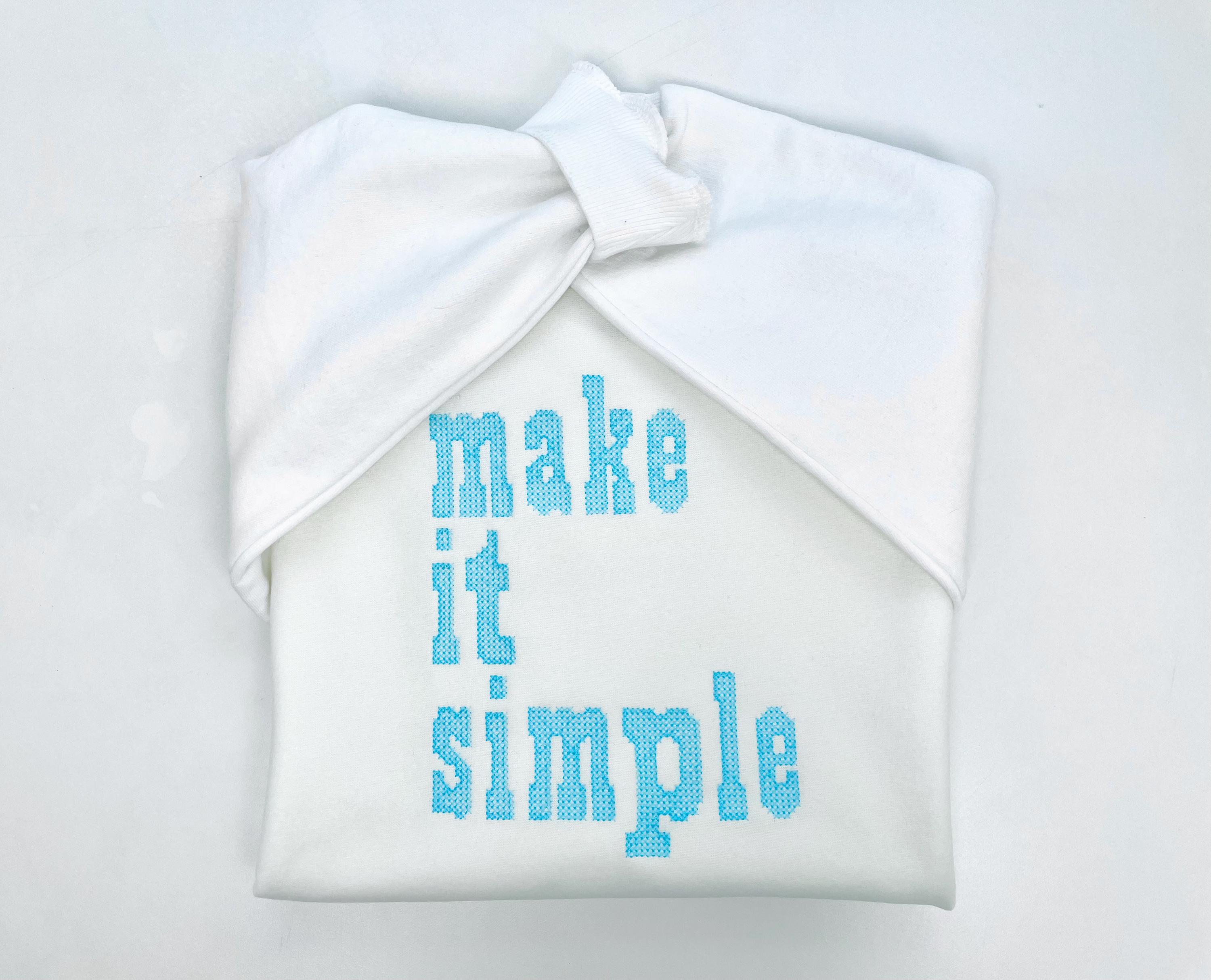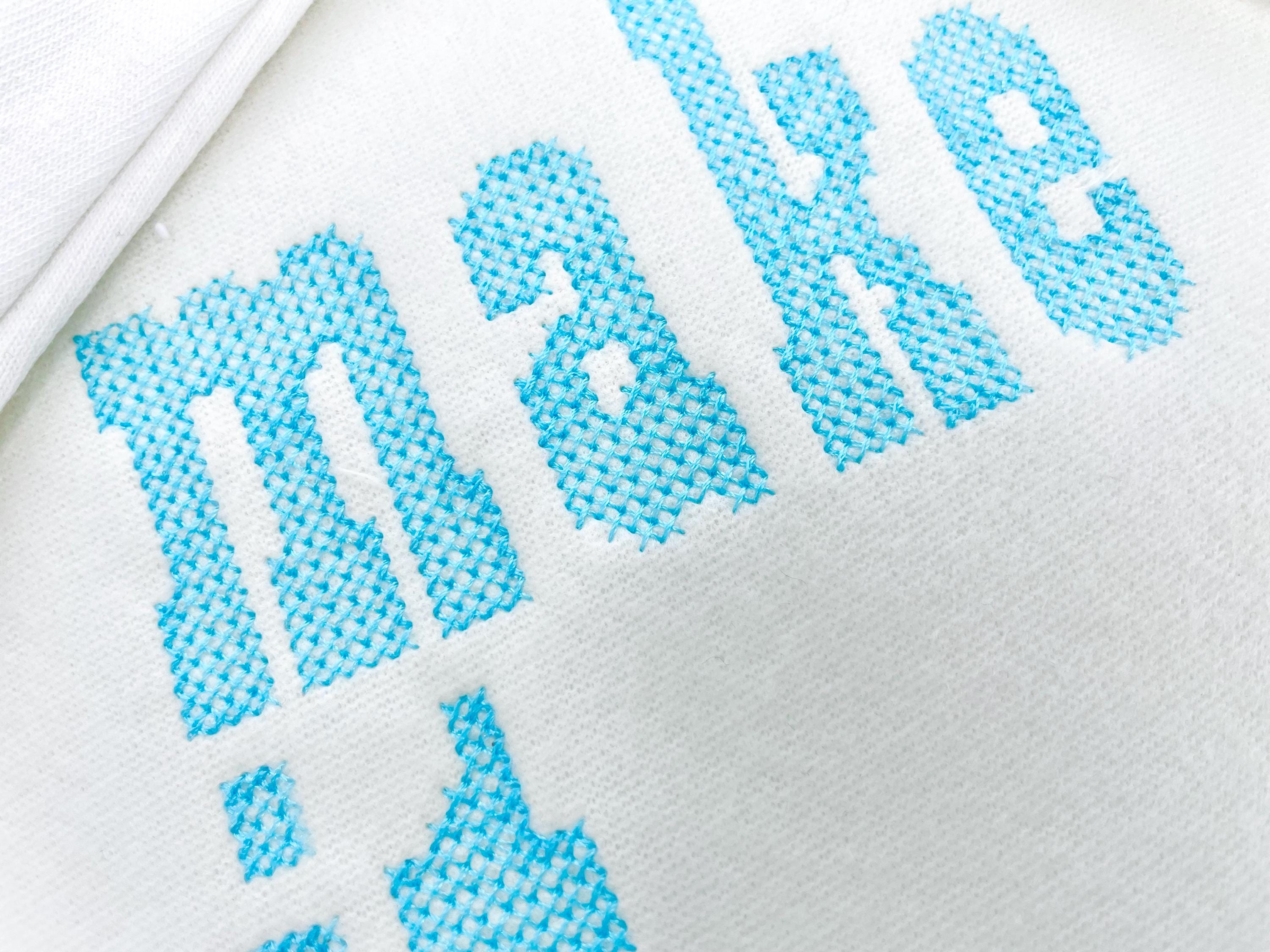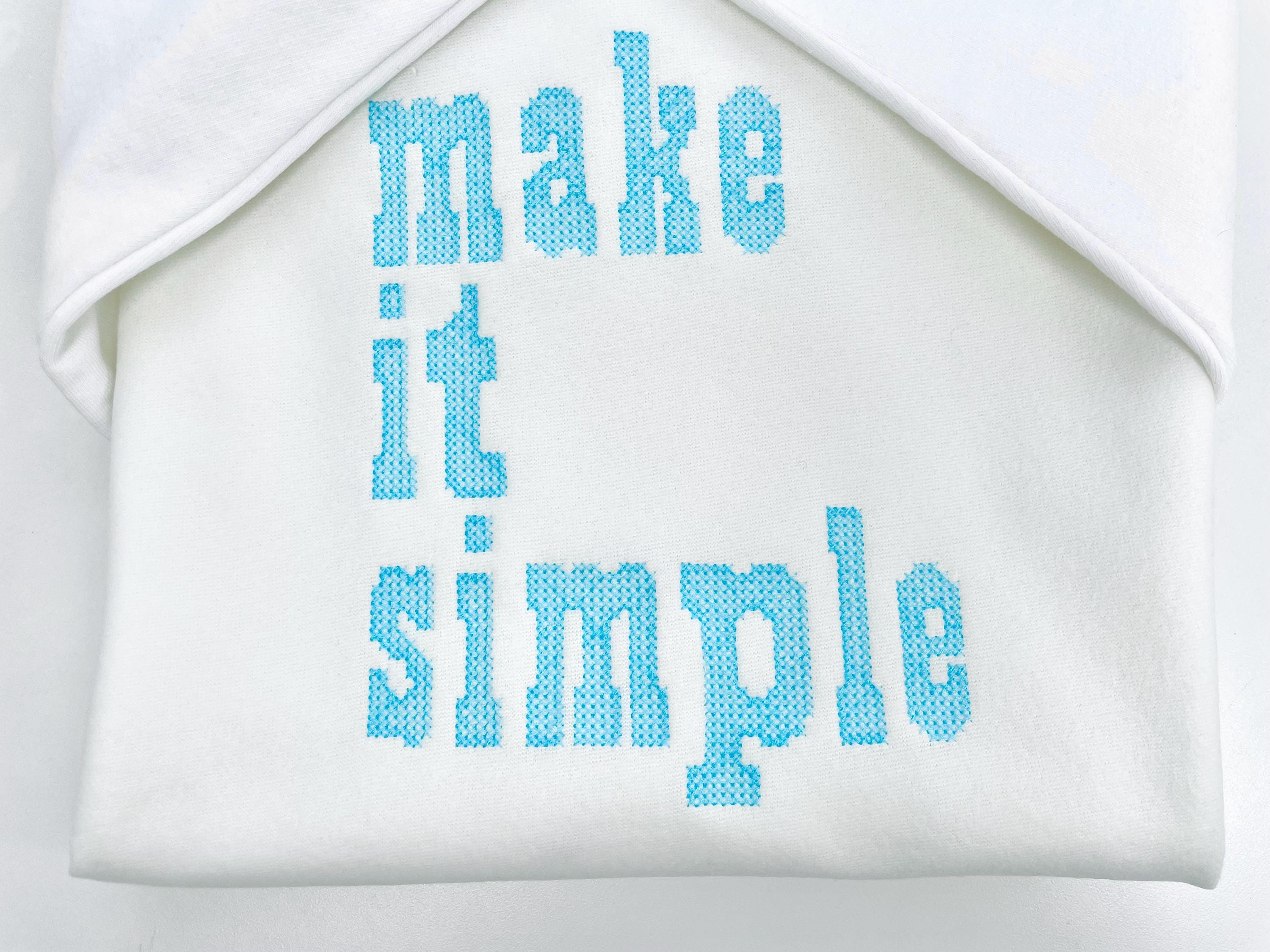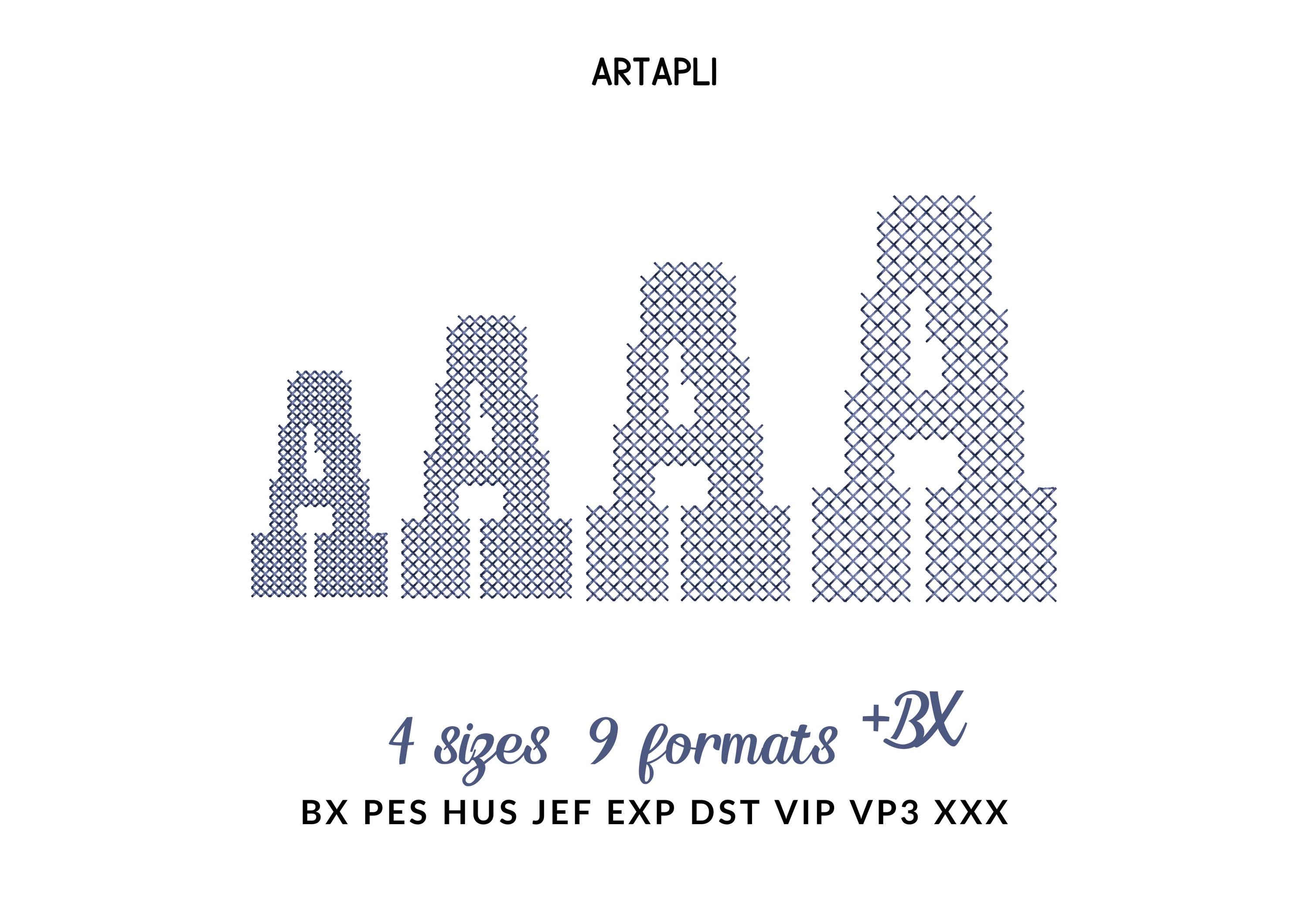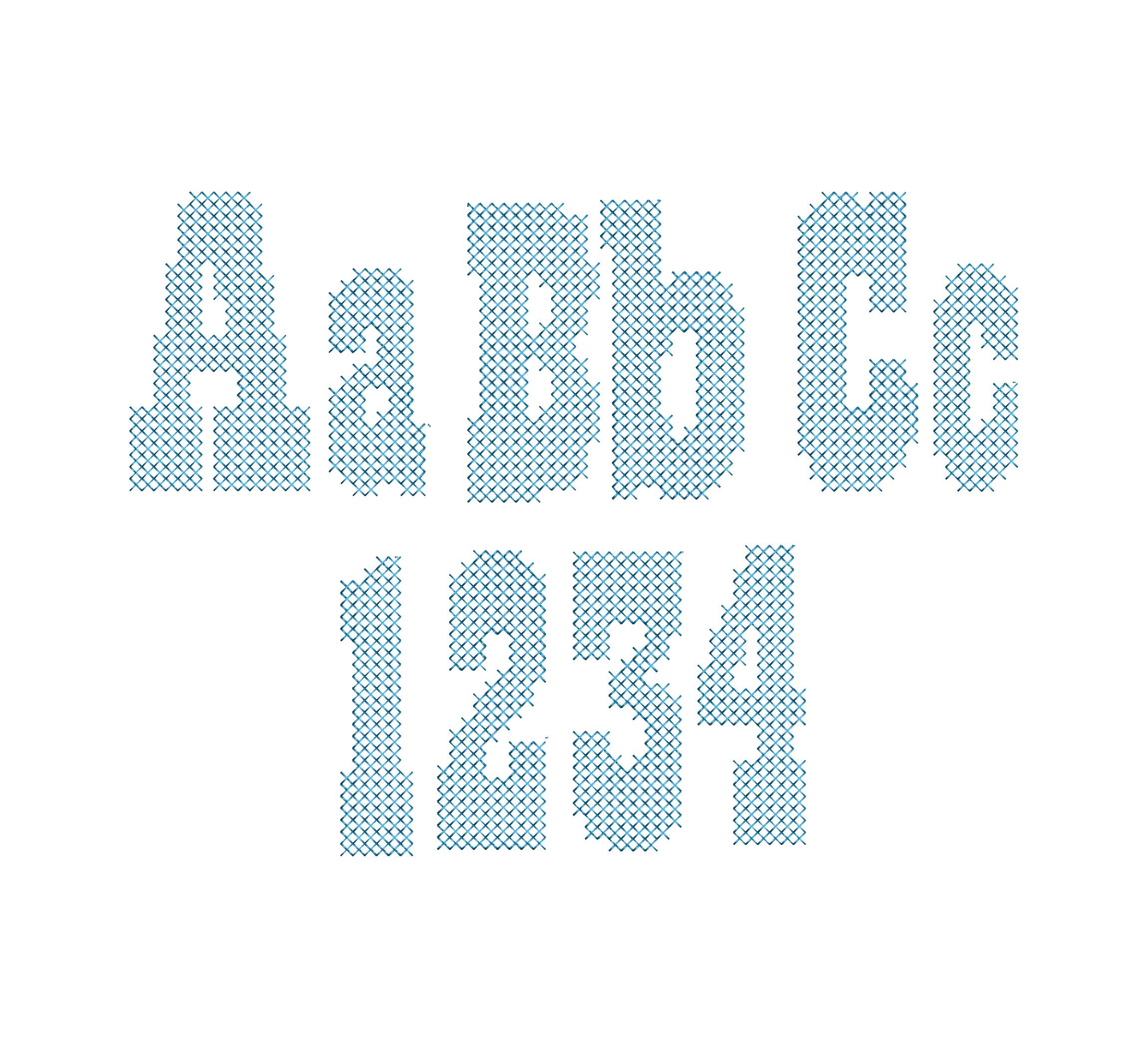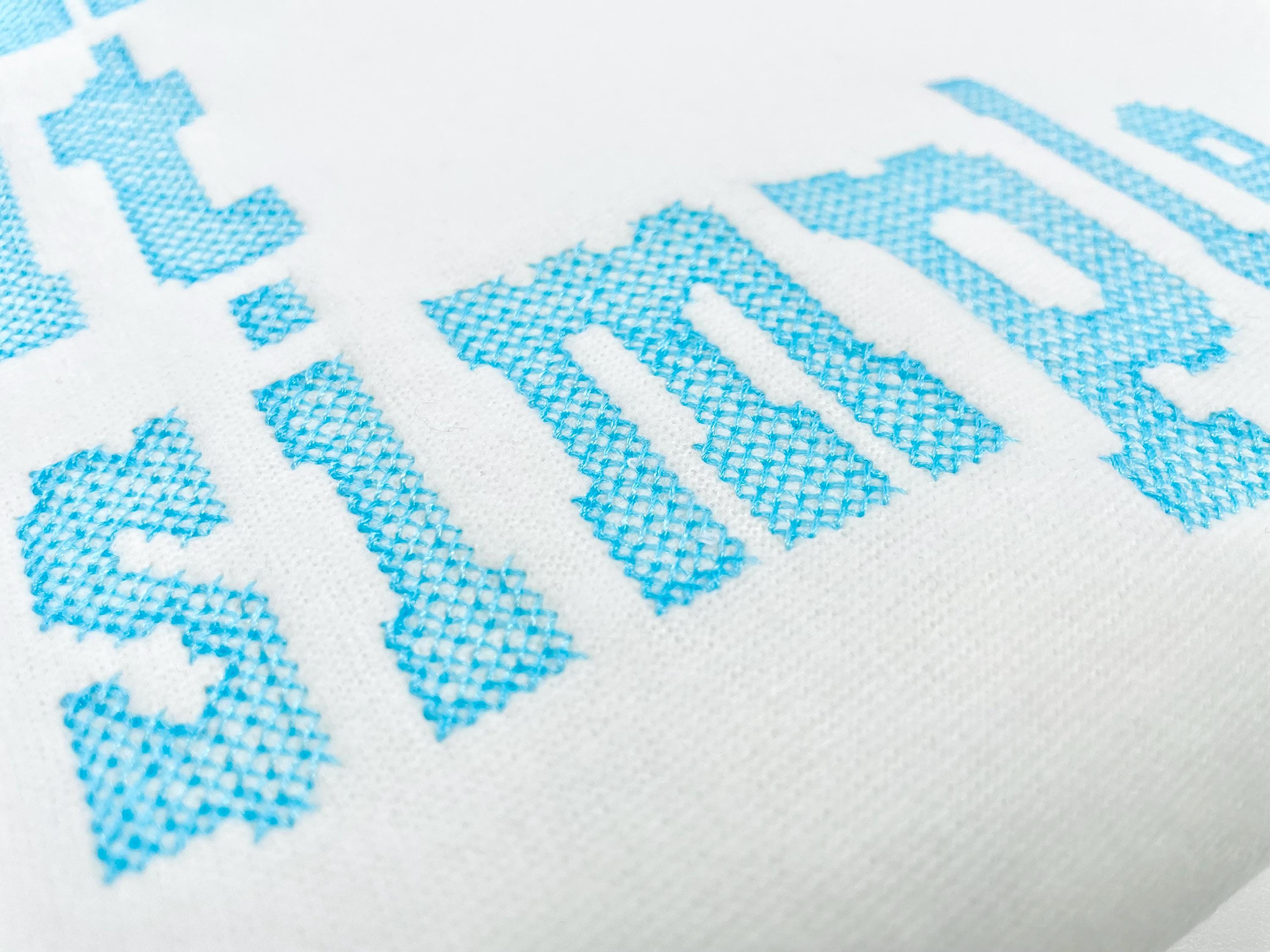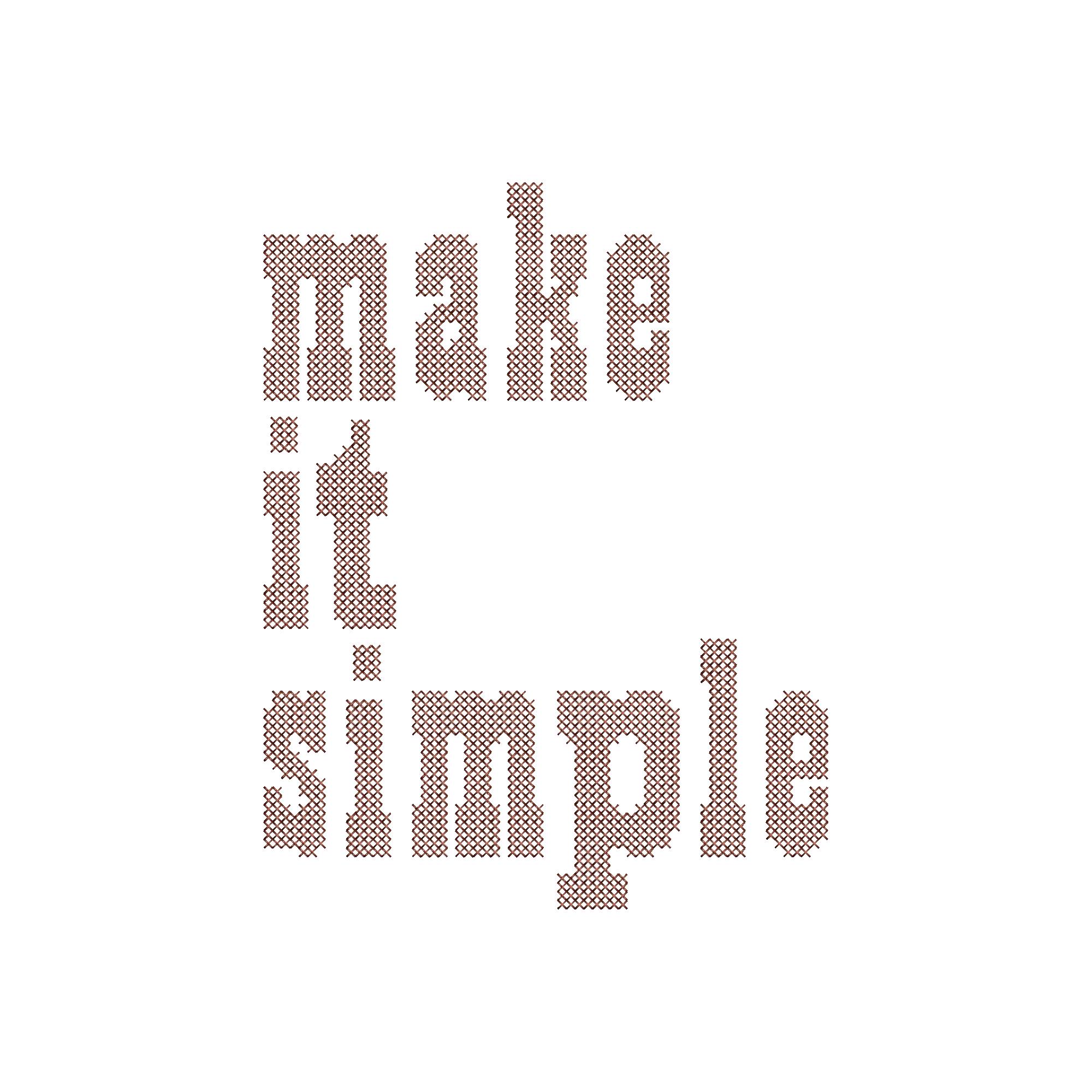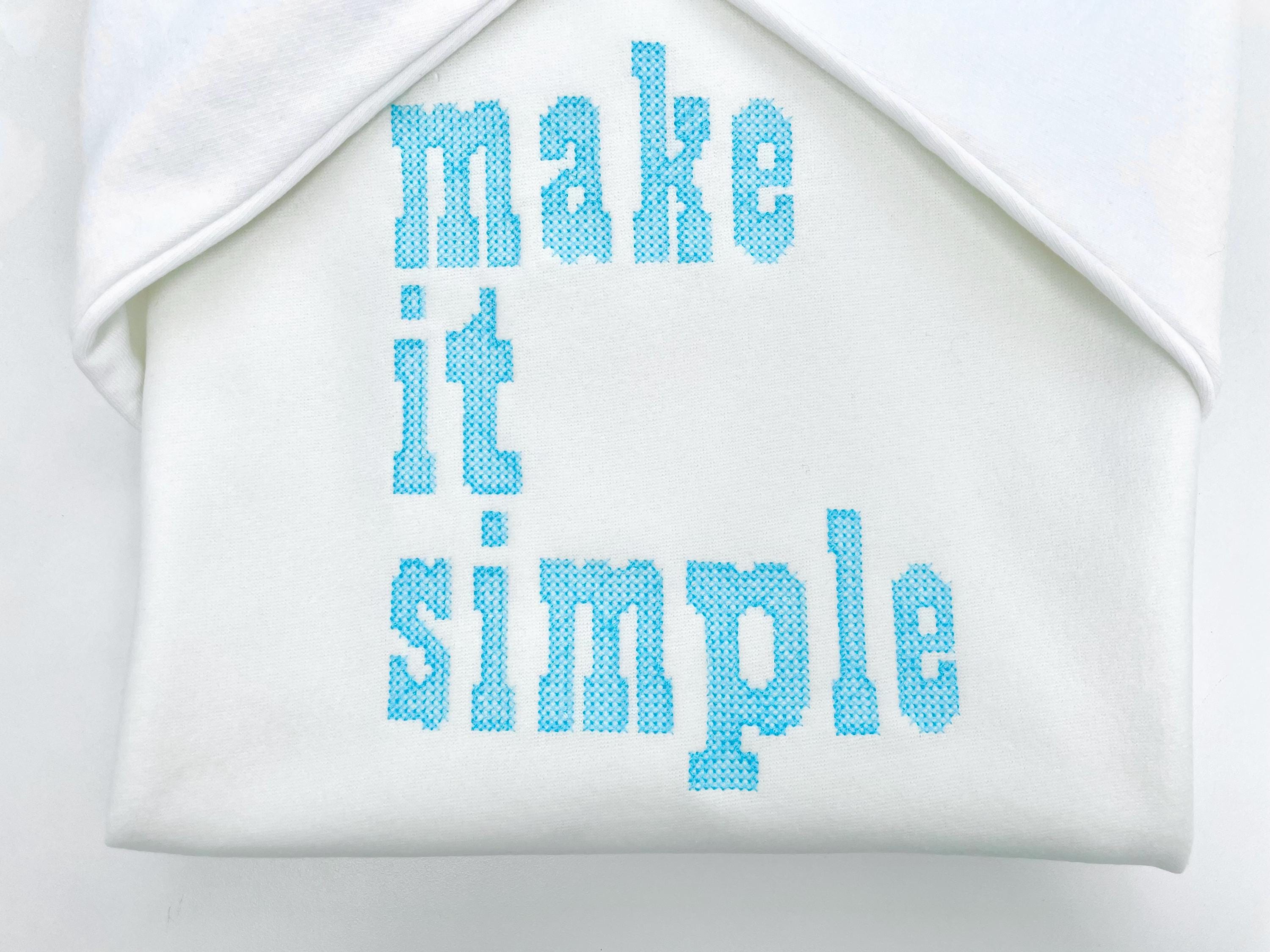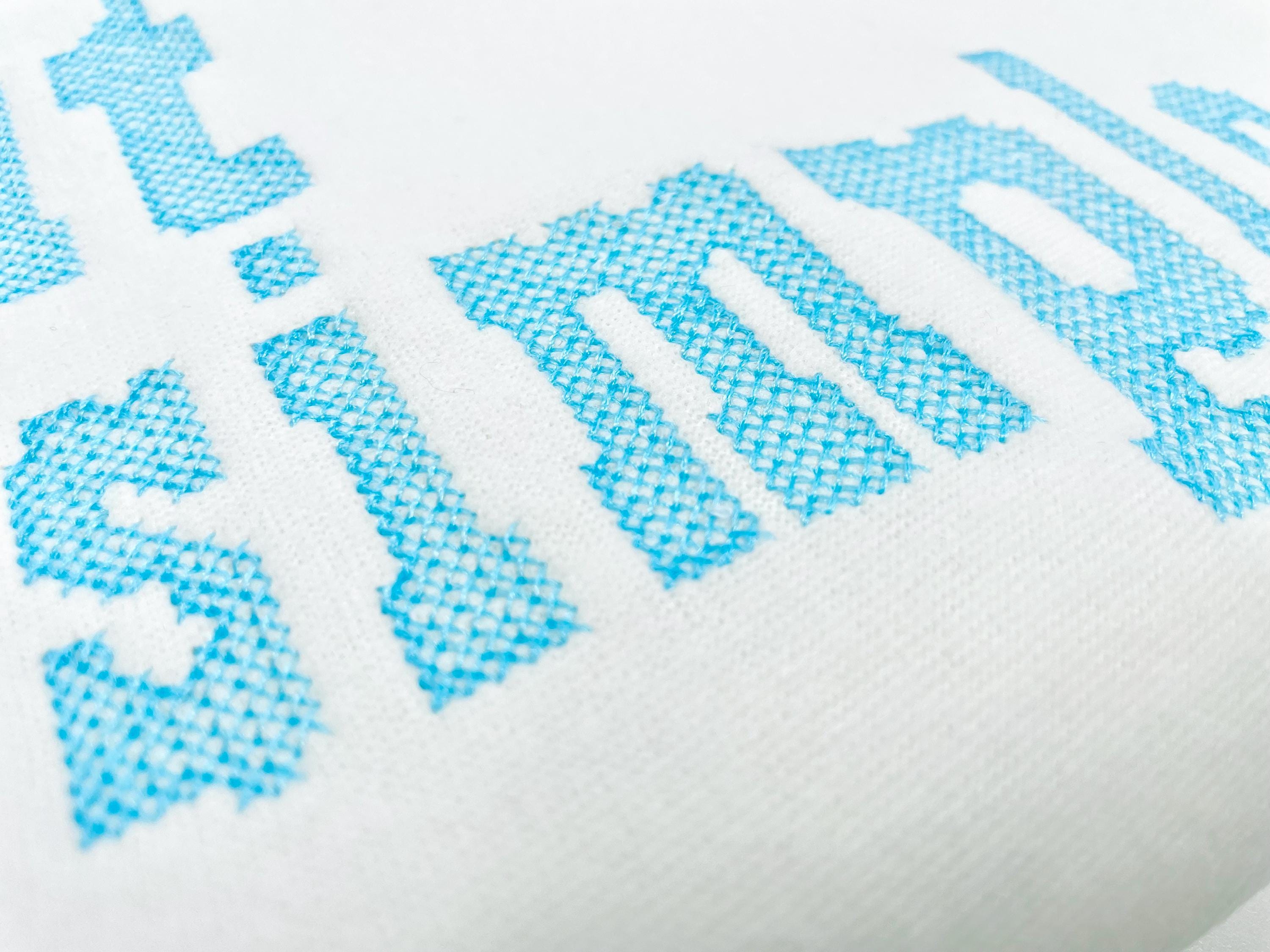
Cross Stitch Bold Font machine embroidery designs Block style Alphabet Monogram letters numbers punctuation sizes 2 up to 3.5 inch
Entire alphabet has uppercase and lowercase letters Aa-Zz, numbers 0-9, and punctuation.